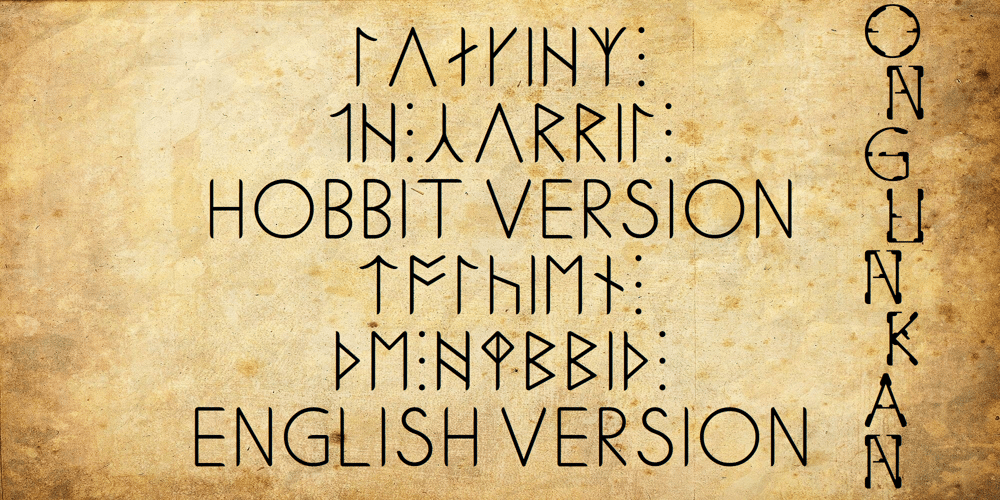
Ongunkan Tolkien English Runic
Ongunkan Tolkien English Runic font
Ongunkan Tolkien English Runic Font Family was designed by Osman Nuri ALKAN and published by Runic World Tamgacı. Ongunkan Tolkien English Runic contains 1 styles and family package options. Cirth was invented by J.R.R. Tolkien for use in his novels. It is modelled on the Anglo-Saxon Runic alphabet, and is used to write the language of the Dwarves (Khuzdul) in The Hobbit and The Lord of the Rings in inscriptions in wood and stone. It is also used as a alternative alphabet for English.This font is english version.